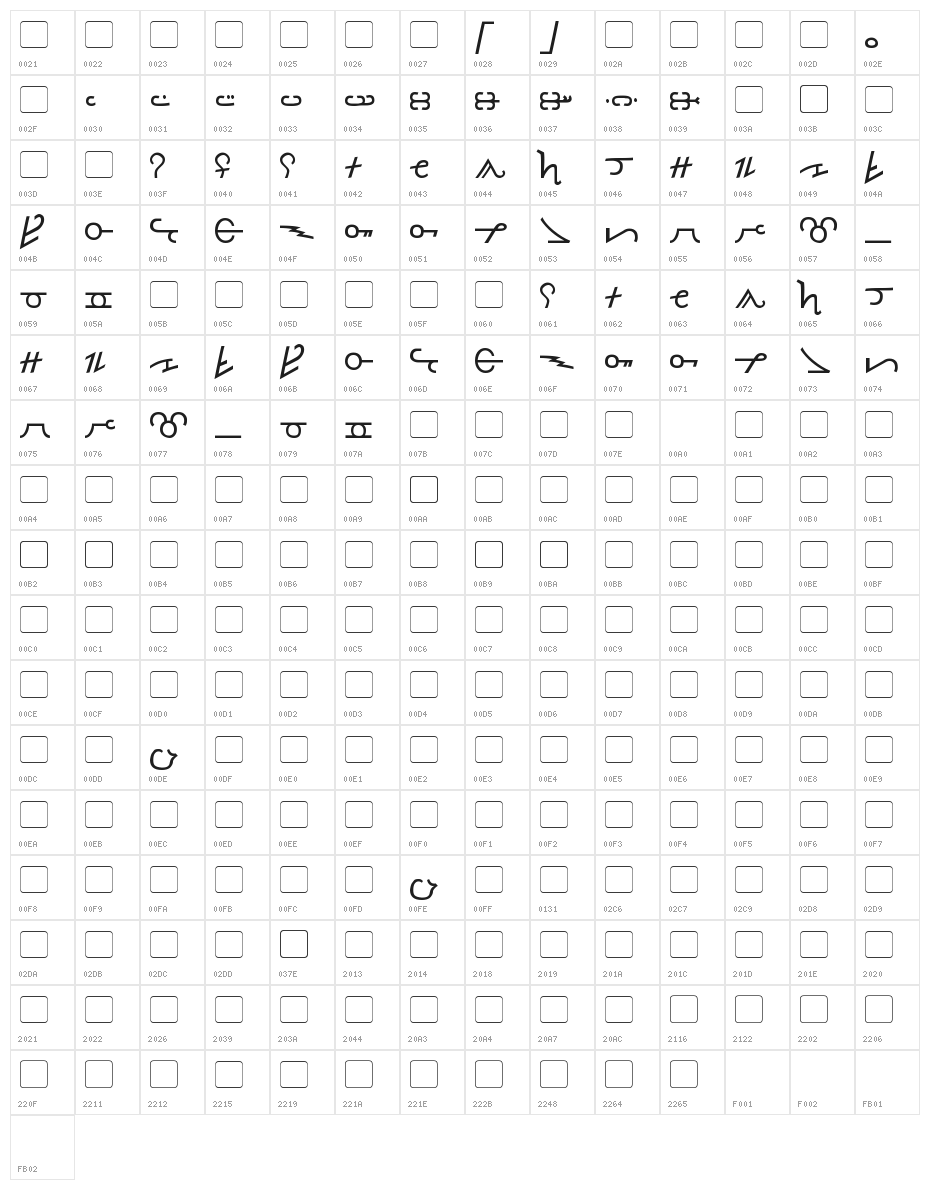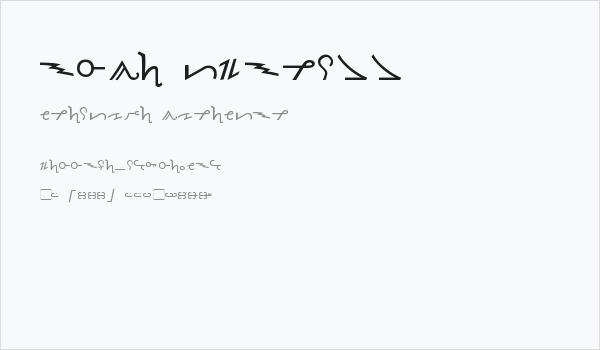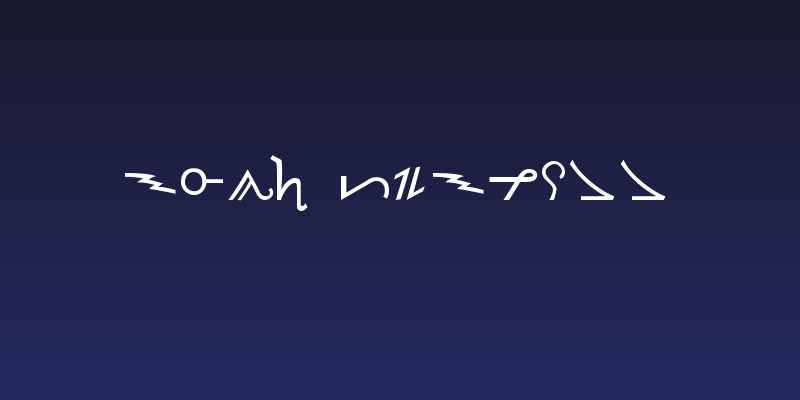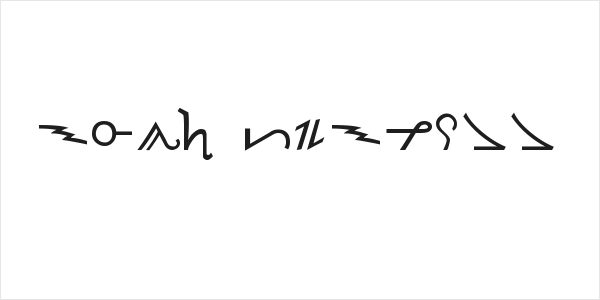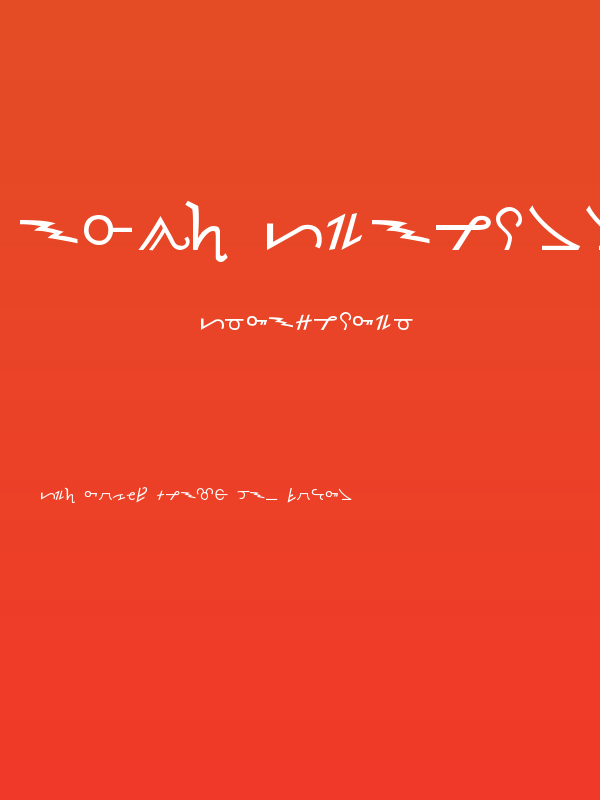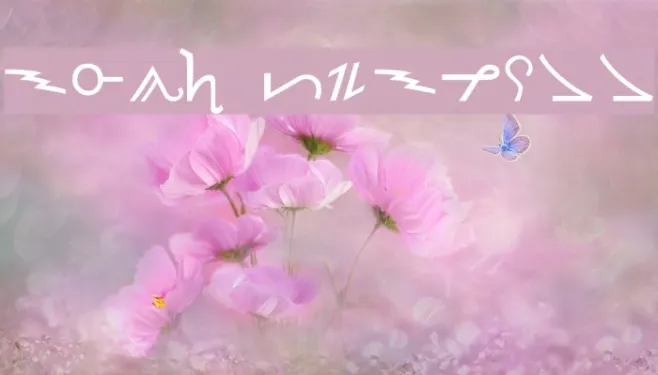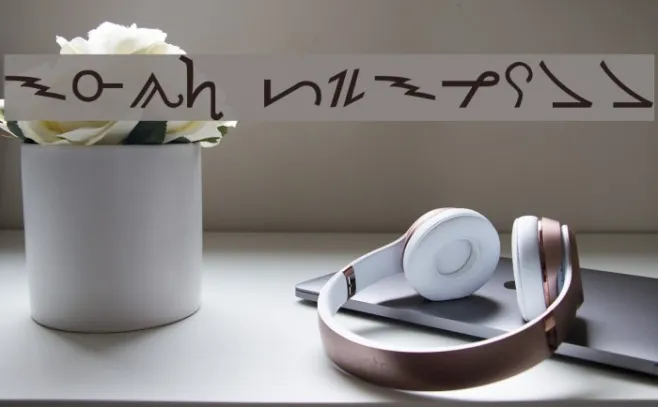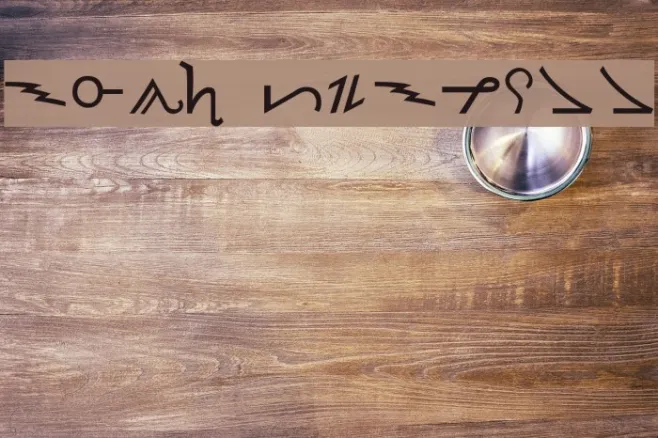
Olde Thorass Font
Olde Thorass Description
This font features a unique and decorative style, reminiscent of ancient scripts and fantasy alphabets. The characters are highly stylized, with intricate curves and angles that suggest a mystical or arcane theme. Each letter is distinct, with a combination of sharp edges and smooth curves, giving the font an exotic and mysterious appearance. The overall design is consistent, maintaining a cohesive look across all characters, including numbers and special symbols. This font is ideal for projects that require a touch of fantasy or historical ambiance.
| Use Case | Logos, Titles, Themed Events |
| Proposed Projects | Perfect for fantasy-themed designs, game interfaces, book covers, or any project needing an ancient or mystical aesthetic. |